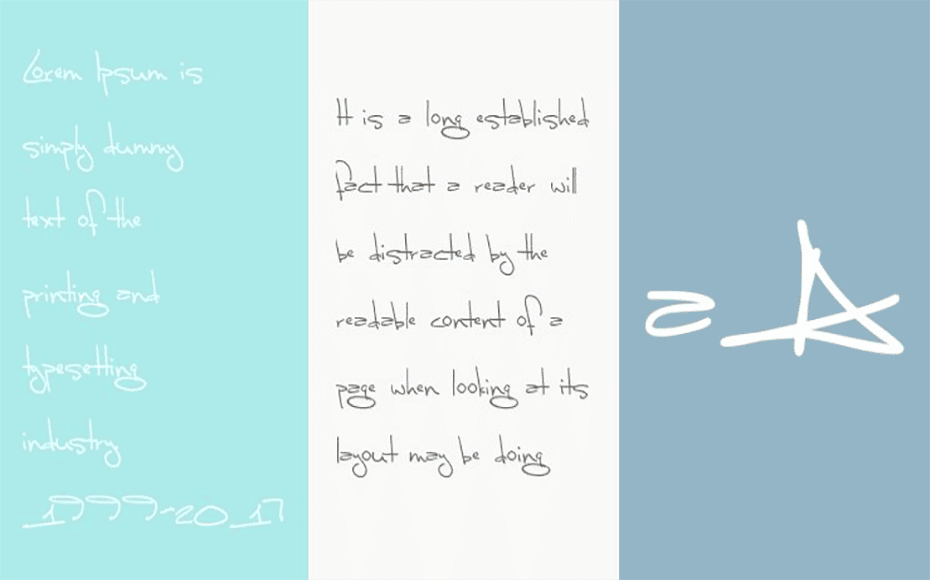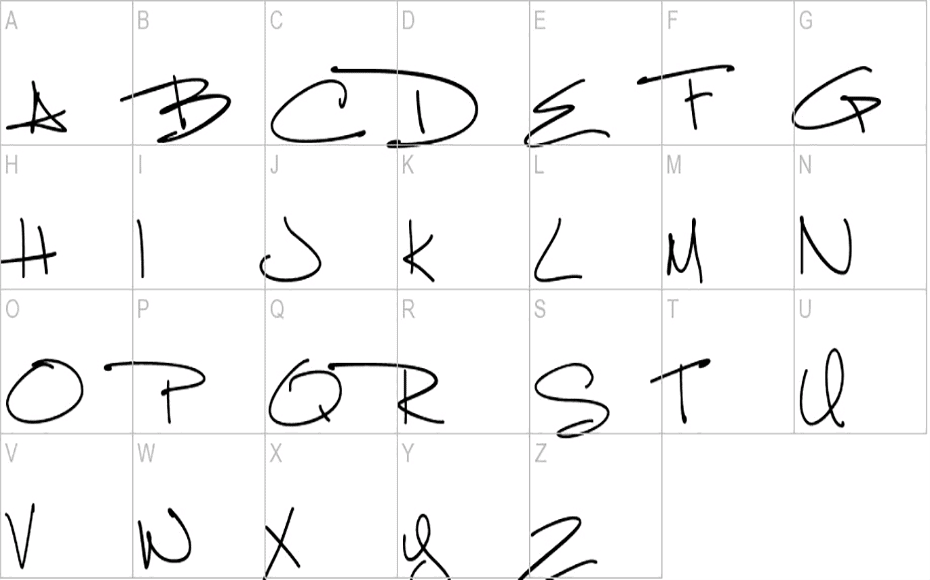
Another striking handwritten signature font is this contender. Dubbed as a stylish homage to classic calligraphy, Luna Bar Font is beautifully intimate and stunning.
It has designed by a female font designer Miss. Jennifer Dickert. And She shared it via her font foundry Fat Cat Fonts for the first time.
Each glyph contains a script font designed by the designer. Therefore, it has tremendous potential to add a unique and stylish touch to your design.
This gay font is usually perfect for copying prints, so it feels just like natural handwriting. Moreover, you can use this font with other fancy fonts.
With its highly engaging lettering, it is perfect for any type of text-related design.
Along with its fancy texture, that signature typeface can use for logo design, signatures, brochure design, book covers, invitation card designs, flyers, covers, product packaging, t-shirt printing, advertisements, shopping bags, and much more.
It has more than 200 characters available only in the regular style. This style is a well-liked amazing font with a very fast and clean look.